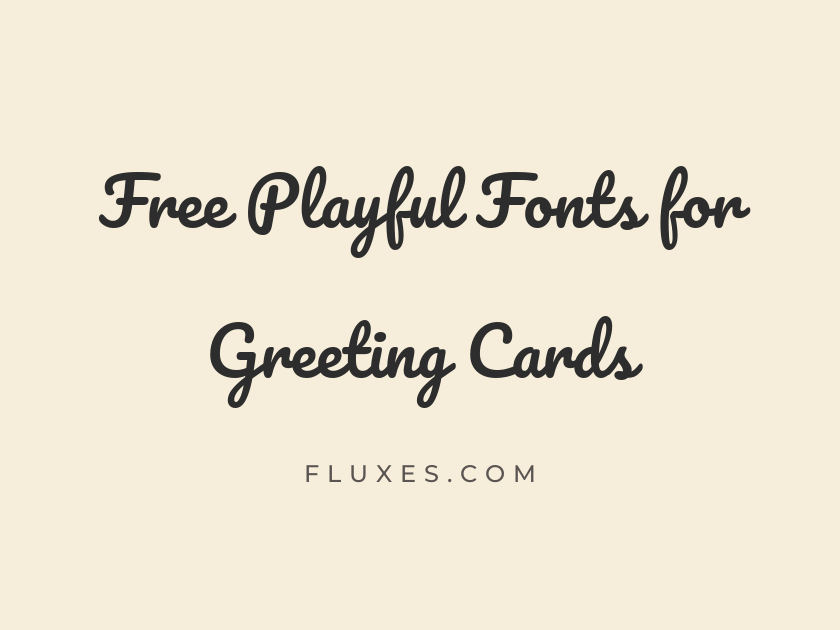
65 Best Free Playful Fonts for Greeting Cards
Greeting cards live or die on charm. A stiff corporate typeface undercuts even the warmest message, while the right playful letterform can make a simple “thinking of you” feel handmade and heartfelt before anyone reads a word. Whether you’re designing a birthday card, a baby announcement, or a cheeky thank-you note, free playful fonts from Google Fonts give you everything from bubbly display caps to loose, ink-splattered scripts, all ready to download and drop into your next project.
Jessica Hische originally sketched Pacifico for a surf shop’s branding, and that laid-back, sun-bleached 1950s energy still radiates from every curve. It’s one of the most recognizable script fonts on the web for good reason: warm, rounded, and immediately friendly without trying too hard.
Use it big on the front of a card and it does most of the emotional work for you.
Caveat reads like a note scrawled by a close friend, quick and genuine rather than fussy. Because it comes as a variable font spanning several weights, you can dial it from a light aside to a bold, confident headline within the same family.
Condensed, hand-drawn, and a little wobbly in the best way, Amatic SC packs a lot of whimsy into a tiny footprint. It shines as a card headline but can thin out and lose punch at very small sizes, so save it for display text rather than fine print.
This one feels like a quick note passed in class, casual and unguarded. It pairs nicely with a cleaner sans for the inside message so the card doesn’t read as one long doodle.
Bold, blunt-tipped, and a little messy at the edges, Permanent Marker shouts rather than whispers. It’s built for exclamations, “Surprise!”, “Congrats!”, “You did it!”, and loses some of its charm in longer sentences.
Rounded, bubbly, and endlessly friendly, Indie Flower has become a go-to for anyone who wants handwriting-style warmth without any rough edges. It reads clearly even at modest sizes, which makes it one of the more versatile playful fonts for greeting card interiors.
Gloria Hallelujah
Based on the designer’s own casual scribbles, this font has an illustrated, storybook-margin quality. It sits comfortably beside a bold display font like Bangers for a two-tone, kid’s-book style card.
A single-weight brush script with a cheeky name, Sriracha has just enough irregularity to feel personal without tipping into illegible. It’s a solid, low-fuss choice when you want script charm without hunting through variable weights.
Where many handwriting fonts sacrifice legibility for character, Patrick Hand keeps both. It holds up nicely as the actual message text inside a card, not just the cover line.
This one mimics the loose, slightly slanted lettering of a sketchbook margin note. It has a homemade, DIY-card feel that suits craft-style greetings and scrapbook layouts especially well.
Pulled straight from vintage comic book lettering, Bangers is loud, chunky, and impossible to ignore. It’s uppercase only, so it’s best kept to short bursts rather than full sentences, but for a single celebratory word on a card front, nothing beats its energy.
Pair it with a calmer script or rounded sans for the supporting copy so the whole card doesn’t compete for attention.
Fredoka’s rounded, balloon-like letterforms feel inflated and cheerful, almost like party decor rendered in type. It comes in a wide weight range, so a single family can carry a whole card from soft body copy to a bold, punchy headline.
Chunky and warm, Baloo 2 has a friendly heft that works well for milestone cards, graduations, new babies, big life news. Its rounded terminals keep it from feeling stiff even at bold weights.
Thick, gum-drop letterforms make Chewy an easy pick whenever a card needs to feel like a party. It’s especially at home on kids’ birthday invitations and anything candy-colored.
Poster-style and confidently bold, Luckiest Guy channels mid-century advertising lettering with a wink. Use it sparingly, a headline or a single celebratory phrase, since its heavy weight overwhelms longer passages.
There’s a vintage postcard elegance to Grand Hotel, with just enough bounce in its baseline to keep it from feeling too formal. It suits anniversary and thank-you cards that want warmth with a touch of polish.
Test everything at print size before finalizing. Some of the loosest handwriting fonts look charming on screen but turn muddy once shrunk down for a small card interior.
Finally, leave room to breathe. Playful fonts already carry a lot of personality, so generous spacing keeps a card feeling festive rather than cluttered.
Whatever the occasion, there’s no shortage of free, downloadable personality waiting in Google Fonts. Pick one voice for the headline, one for the message, and let the type do a little of the celebrating for you.